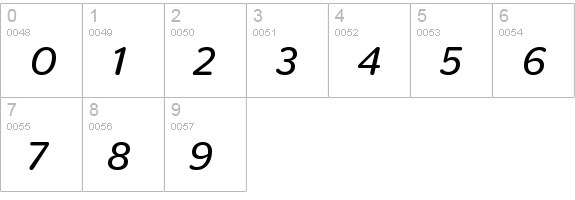
Stag Sans Round Book Italic is a comfortable, highly readable, italic variant in the Stag typeface family \xE2\x80\x94 well suited to long-form body text, articles, and editorial content.
Stag Sans Round Book Italic is a modern and sleek typeface that exudes sophistication and elegance. Its slanted design adds a touch of dynamism and style to any text, making it perfect for editorial pieces, branding projects, and more. The smooth curves and rounded edges create a friendly and approachable look, while still maintaining a sense of professionalism. And the best part? Stag Sans Round Book Italic is available for free download at FontsMarket.com. This means you can elevate your design projects with this stunning font without breaking the bank. Don't miss out on the opportunity to add this versatile typeface to your collection today!